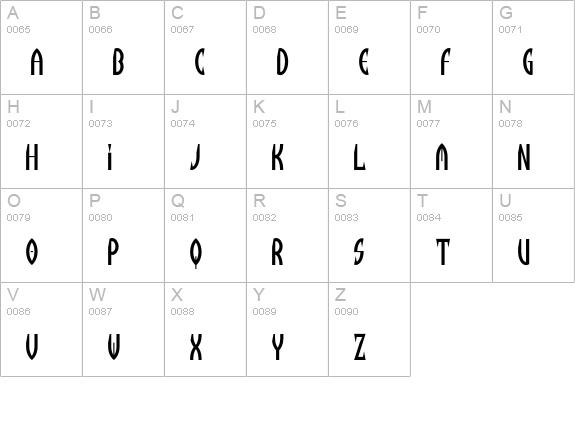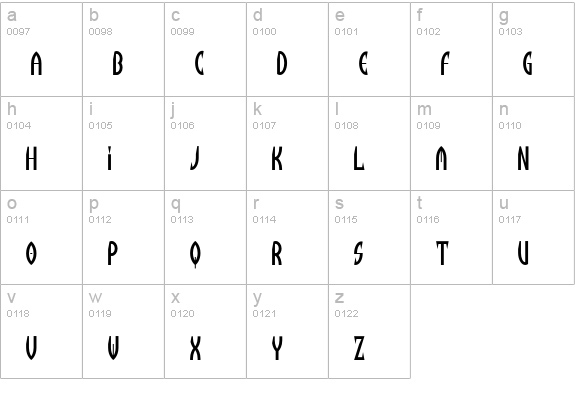
Devit Font Details
Devit font is a modern and stylish typeface that combines sleek lines with a hint of playfulness. Its clean and elegant design makes it perfect for a wide range of projects, from branding to editorial design. The versatility of Devit font allows it to be used in both digital and print mediums, making it a great choice for designers looking for a reliable and eye-catching typeface. What makes Devit font even more appealing is that it is available for free download at FontsMarket.com. This means that you can easily access this high-quality font without any cost, making it a fantastic addition to your design toolkit. Whether you're working on a personal project or a client's design, Devit font is sure to elevate your work with its modern aesthetic and professional look. Download Devit font today and take your designs to the next level!